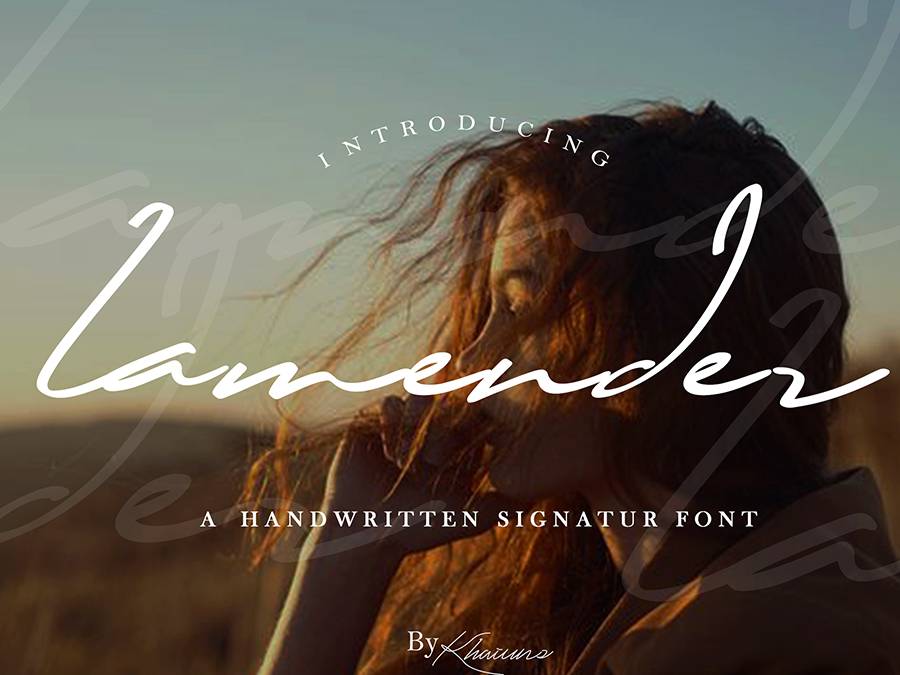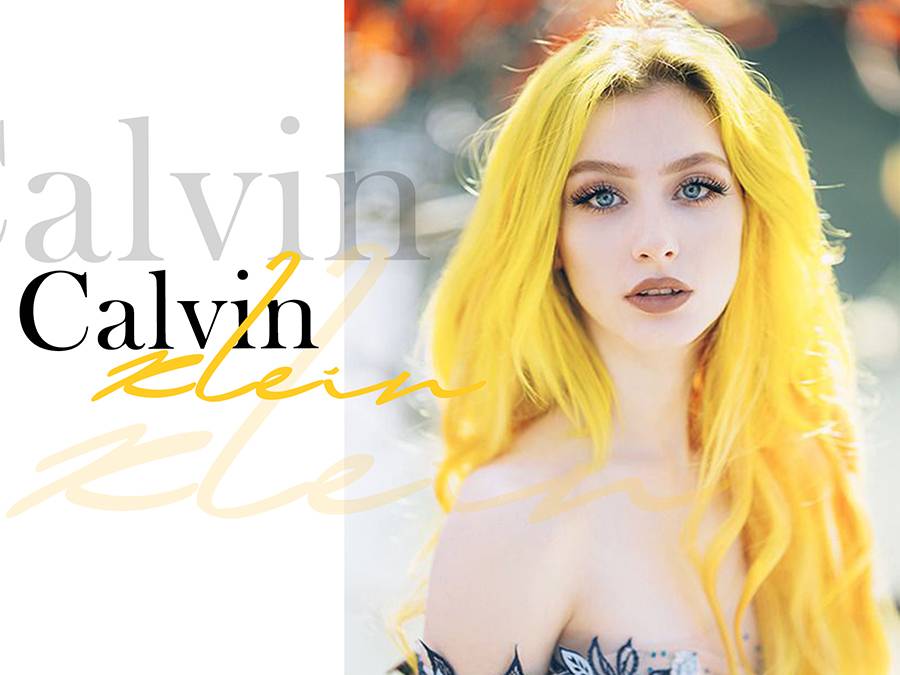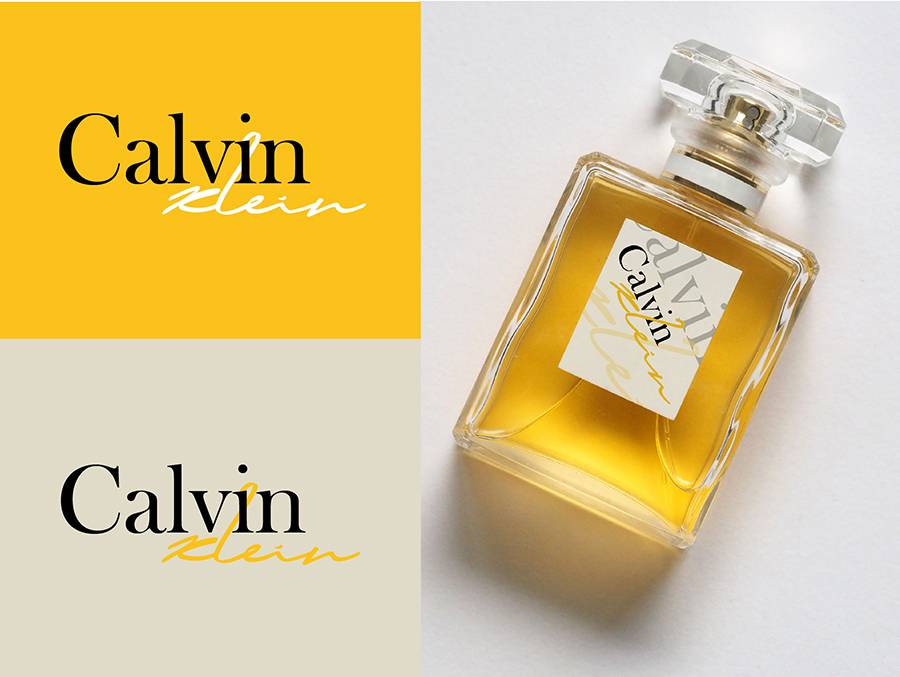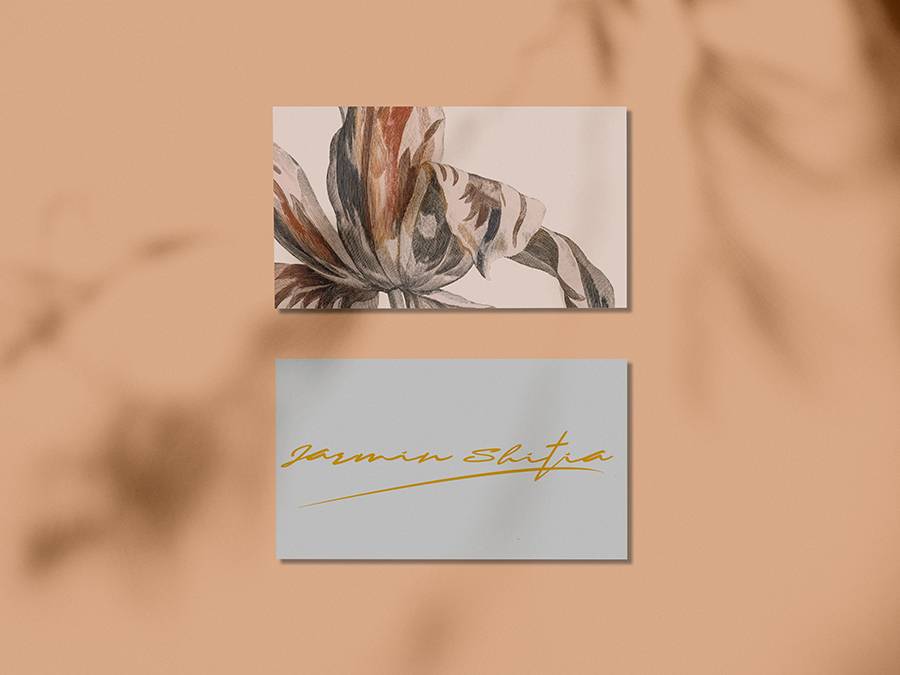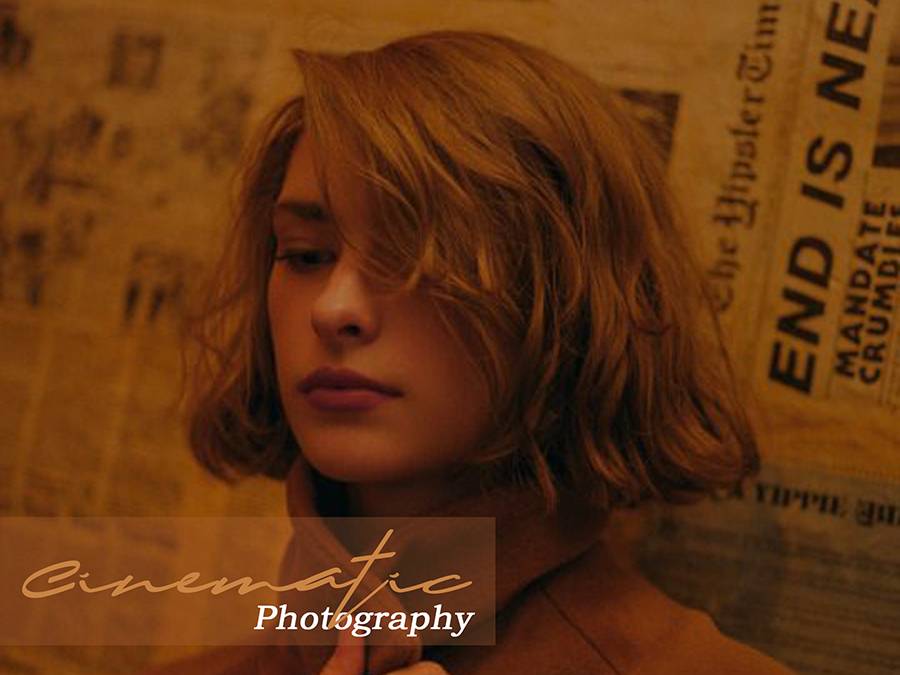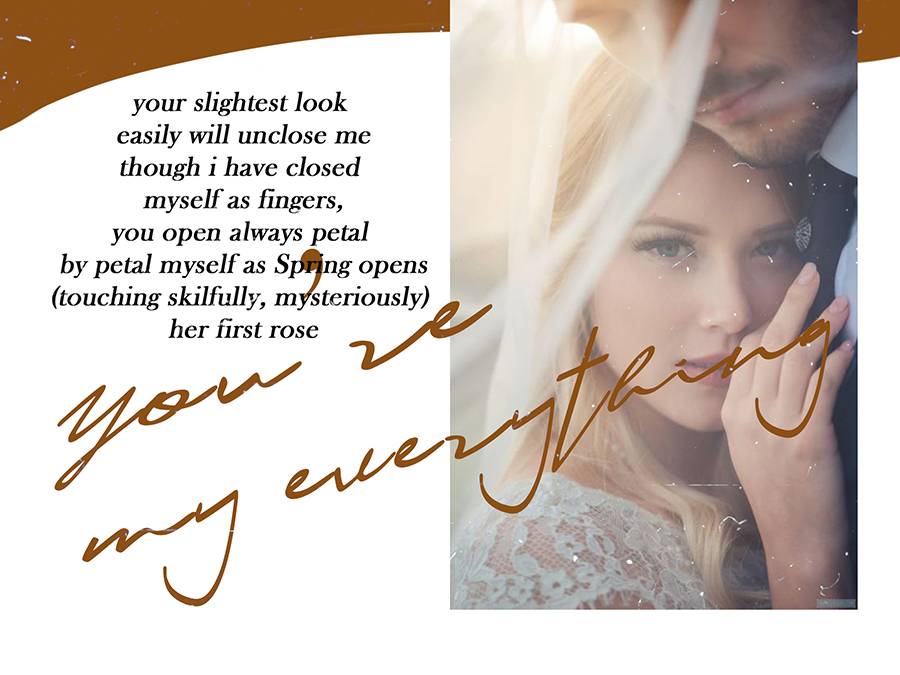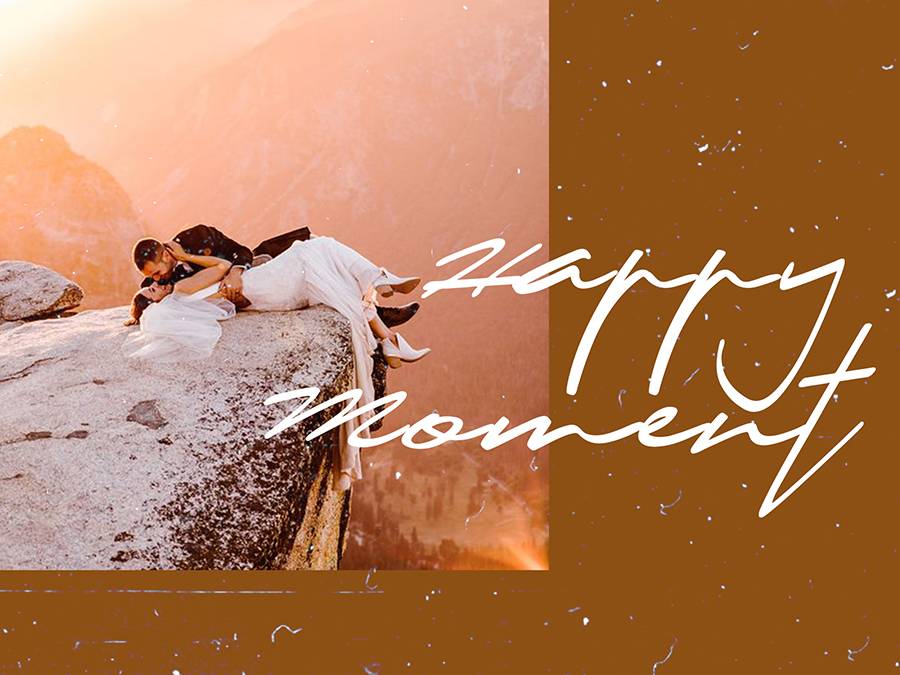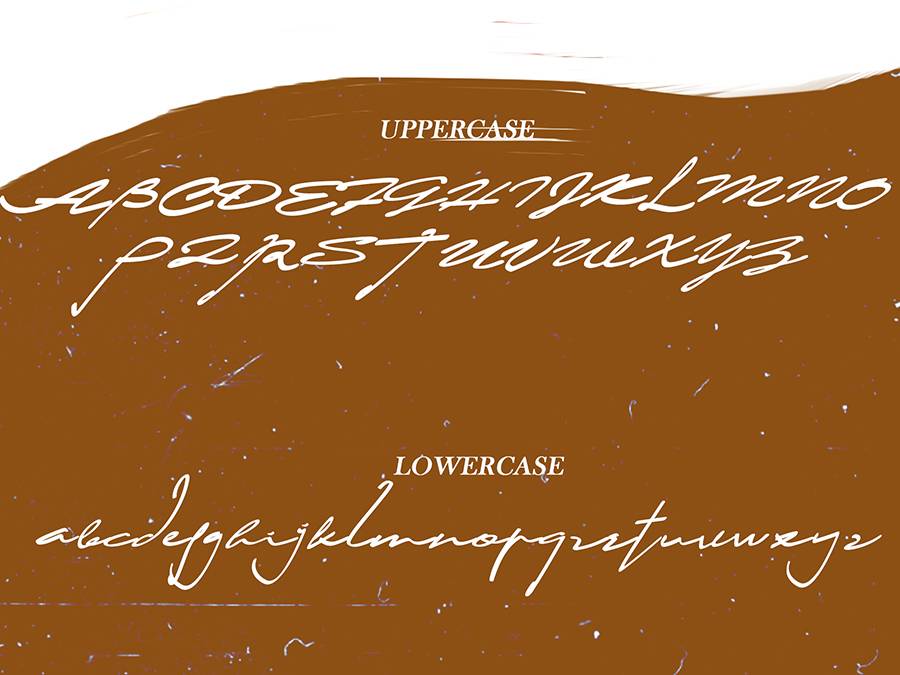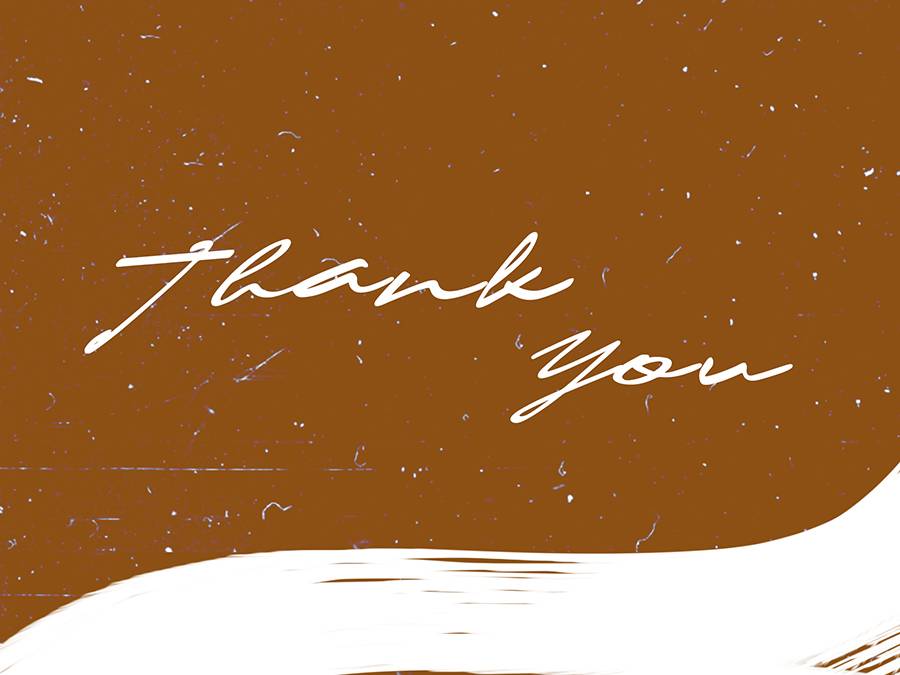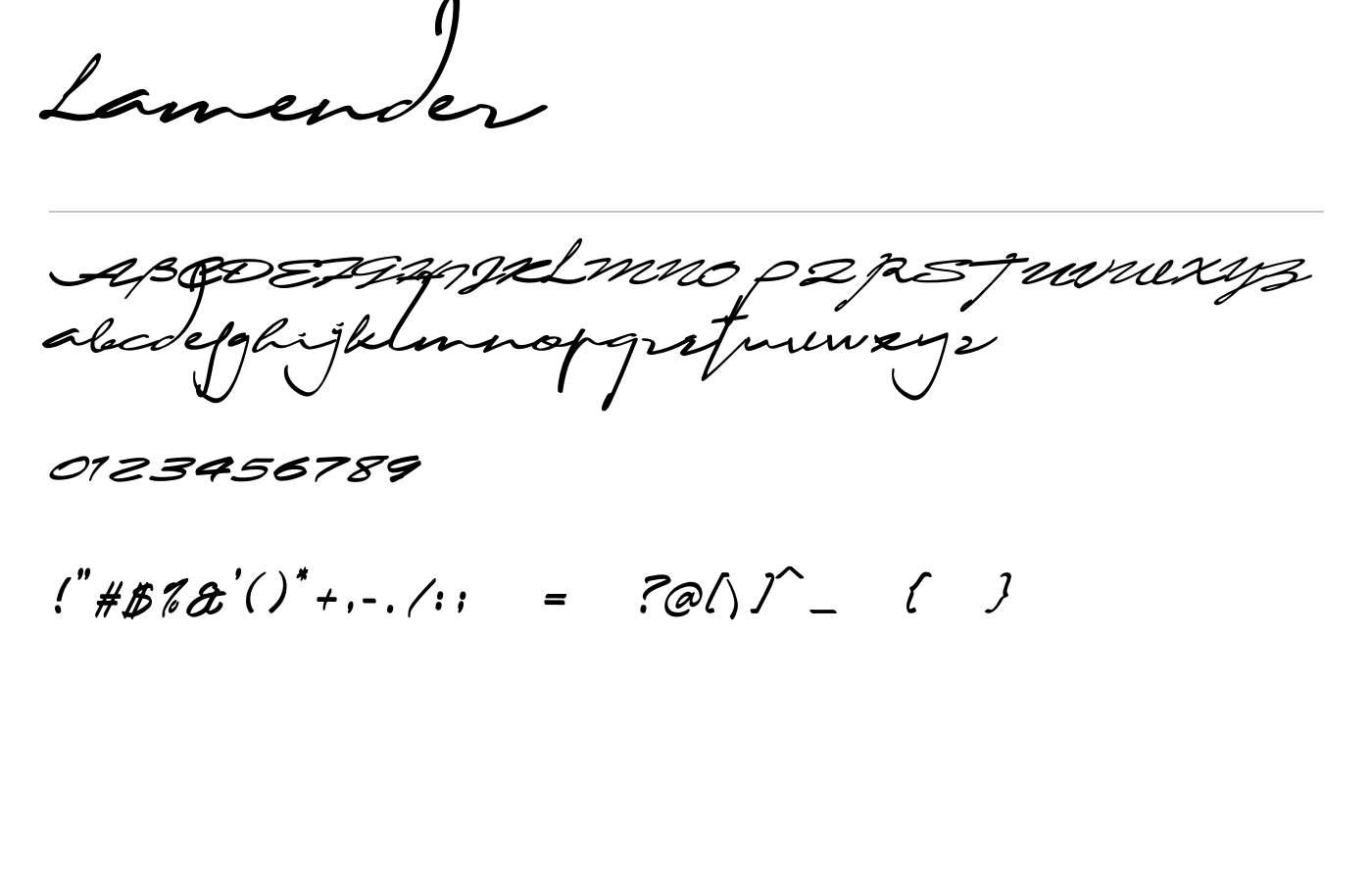
Lamender Handwritten Script is a delicate and flowing cursive font that captures the charm of personal handwriting with its slender, elegant strokes and high contrast. It offers a refined and artistic feel, making it ideal for invitations, branding, and any design that seeks a touch of sophistication and warmth. This font works best in creative projects where a natural yet polished handwritten style enhances the overall aesthetic.
Lamender Handwritten Script
About Lamender Handwritten Script